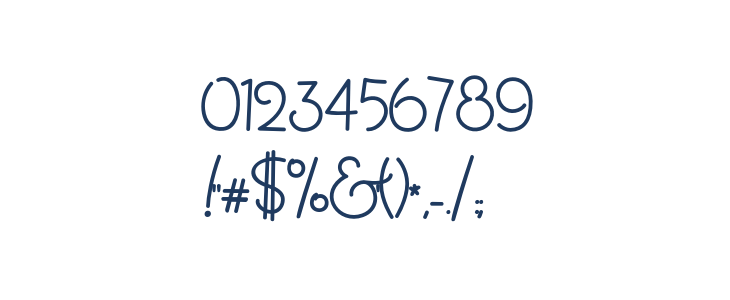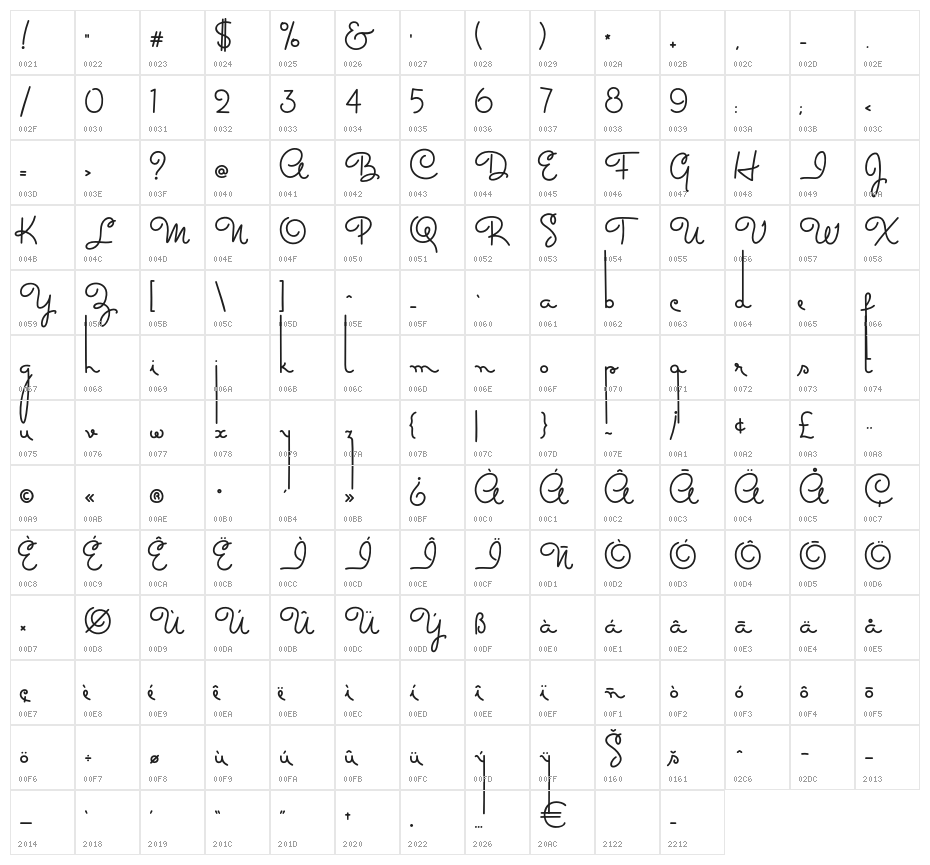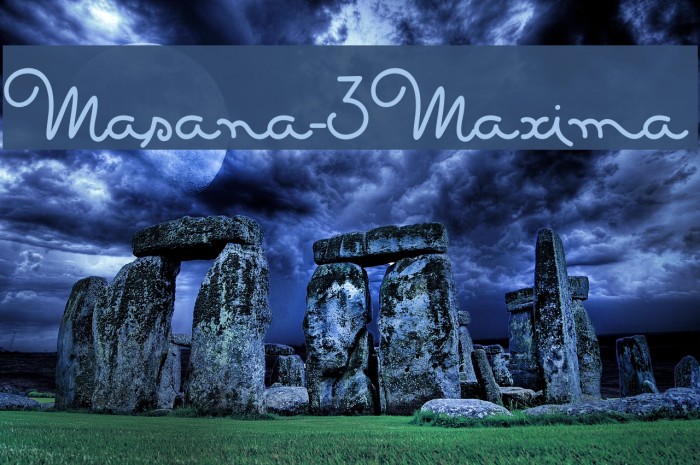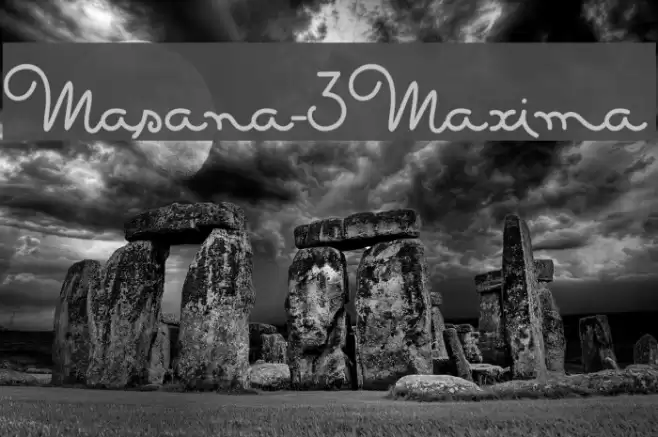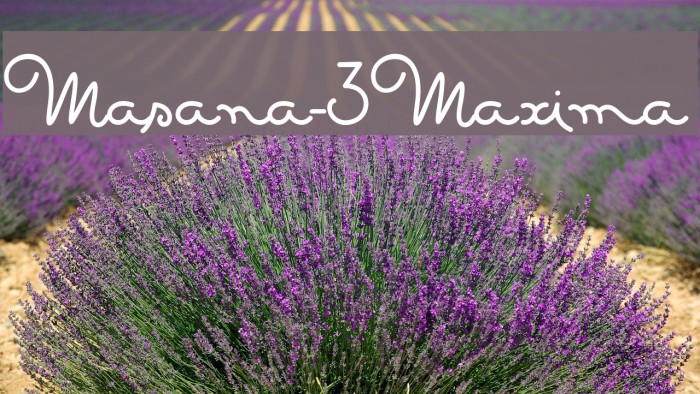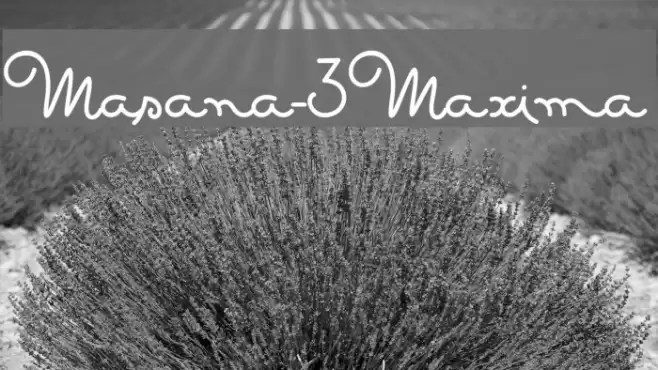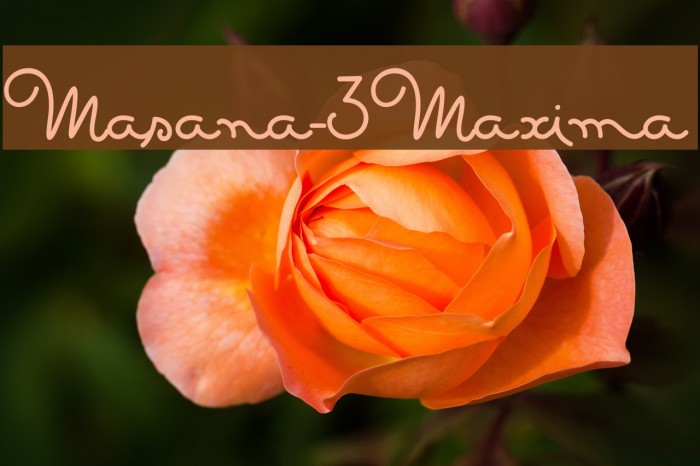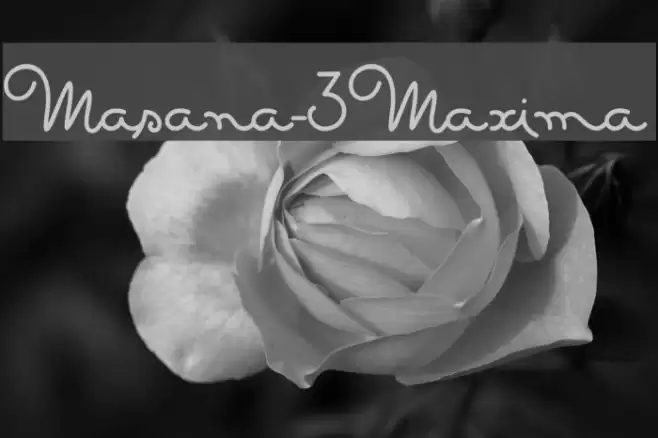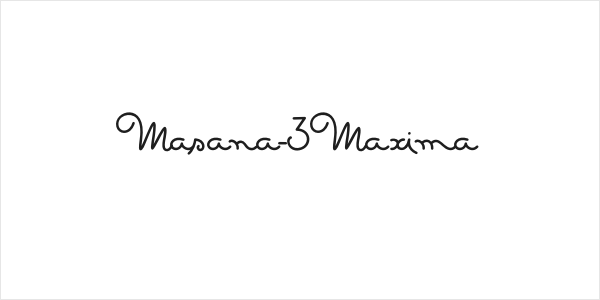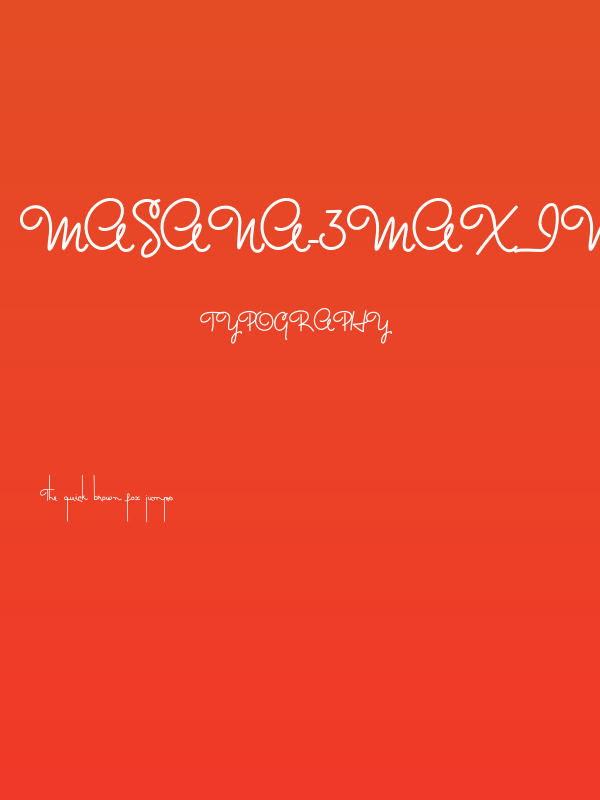
Masana-3Maxima Font
Masana-3Maxima Description
This font features a playful and whimsical script style with a touch of elegance. The uppercase letters are characterized by their flowing, interconnected strokes, creating a sense of movement and fluidity. The lowercase letters maintain a consistent style, with elongated ascenders and descenders that add a unique flair. The numerals are bold and clear, ensuring readability while maintaining the overall aesthetic. Special characters are creatively designed, complementing the font's artistic nature. This font is perfect for projects that require a touch of creativity and sophistication.